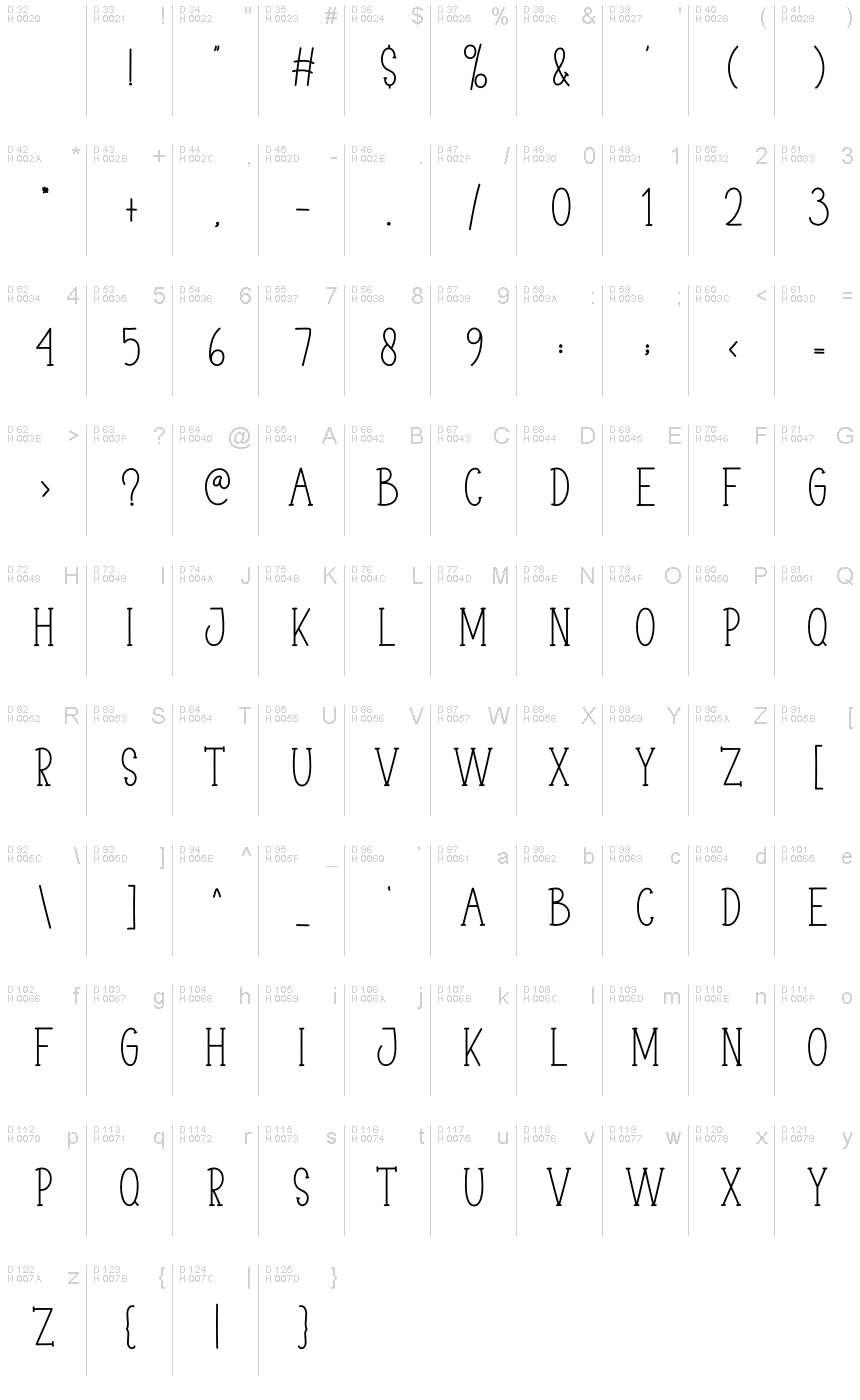
Spicy Seasoning
Spicy Seasoning is a captivating handwritten font designed by Andi Moz. This light, condensed typeface exudes a sense of effortless elegance and charm. Its flowing, organic curves and varying stroke weights create a delightfully imperfect, handcrafted appearance that adds a touch of personality to any design.
Spicy Seasoning's versatility shines through, making it a versatile choice for a wide range of applications. From eye-catching display text to inviting event invitations, this font's distinctive style can elevate both modern and vintage-inspired aesthetics. Its condensed width allows for seamless integration into compact layouts, while its light weight ensures readability even in smaller sizes.